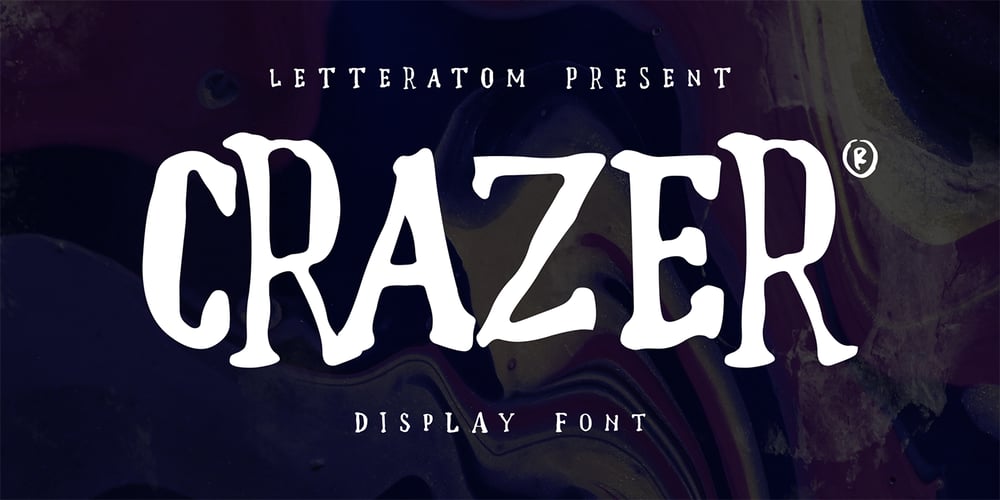
Crazer Font Family was designed by Eko Kurniawan and published by Atom. Crazer contains 1 styles and family package options. Crazer is a strange and irregular display typeface. Bringing tense, scary, powerful, and chaotic artwork. Create your creativity with Other Dangers!